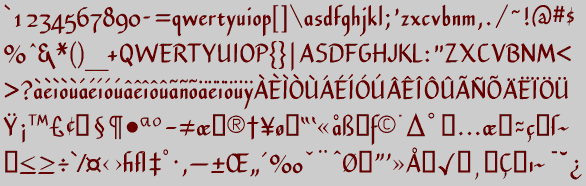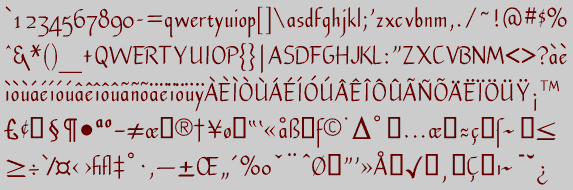
I constructed a number of calligraphic faces using the "Expand Strokes" feature in Fontographer. (I am giving away secrets here.) Instead of constructing the entire path of the letter, one constructs a line which a calligraphic pen will follow. Then one sets the size and angle of the pen, and from that line a calligraphic font appears. Of course, the quality of the end product depends on the quality of the original line--garbage in, garbage out.
Balboat is rather plain, with a very small x-height. Originally constructed for Font Pro Vol 2, it was completed too late to be included in the main collection, but was part of the main group on Font Pro 3.